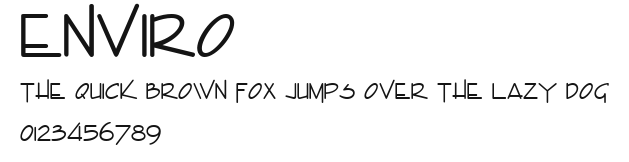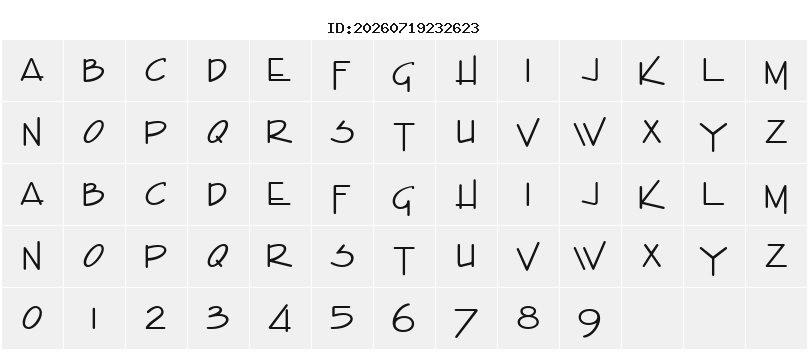
Enviro Preview
• Font Name: Enviro
• Font ID: EnviroITC-Normal
• Full Font Name: EnviroITC-Normal
• PostScript Name: EnviroITC-Normal
About Enviro.ttf
Enviro.ttf is a modern, elegant sans-serif font designed for ultimate readability and visual harmony. Perfect for branding, headlines, web design, and print materials.